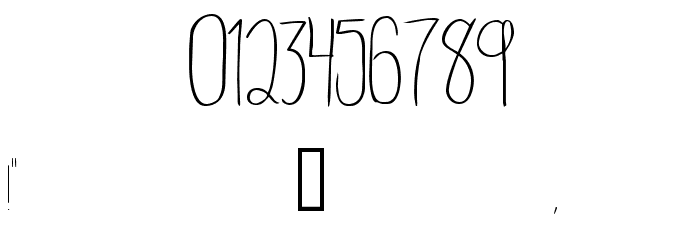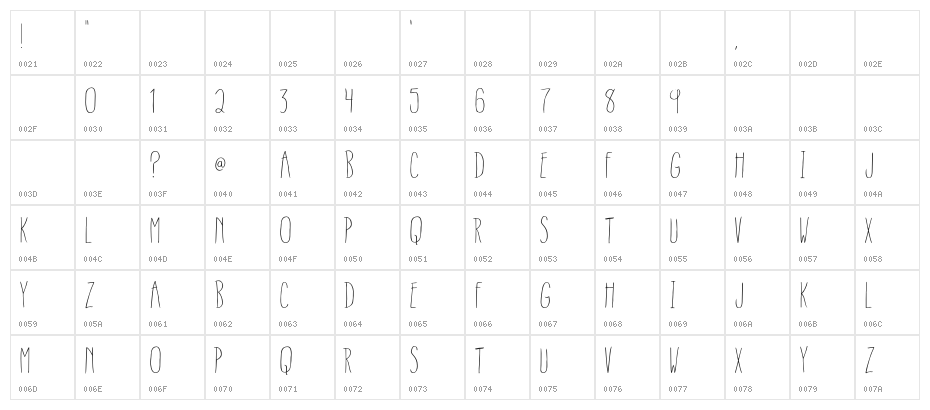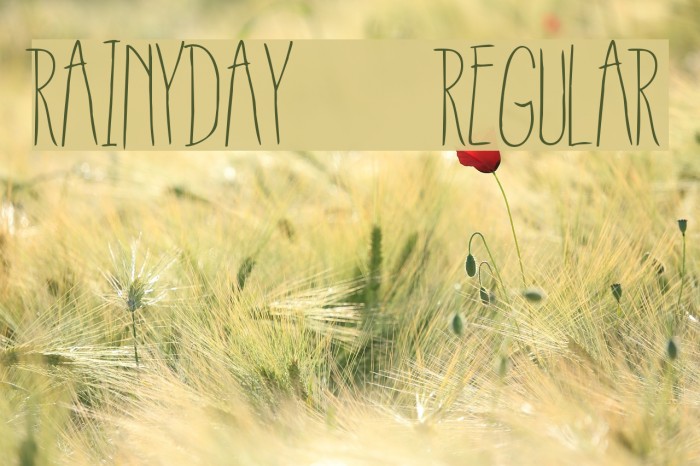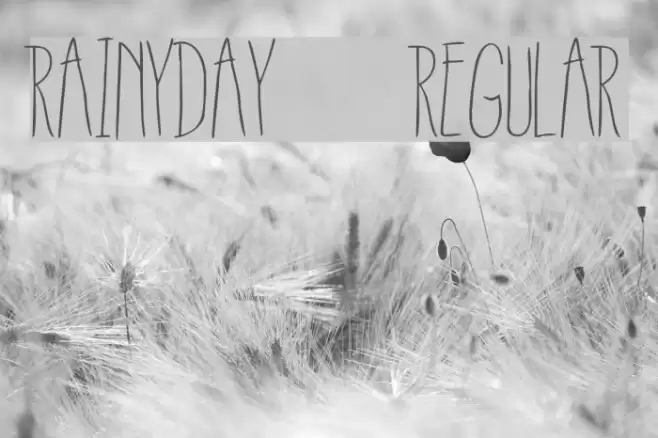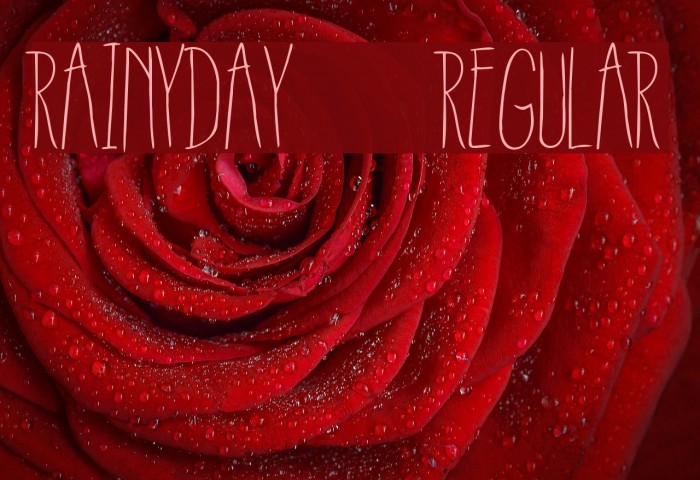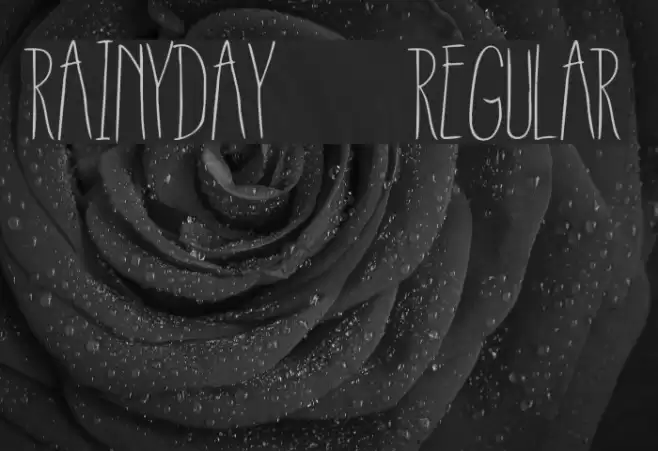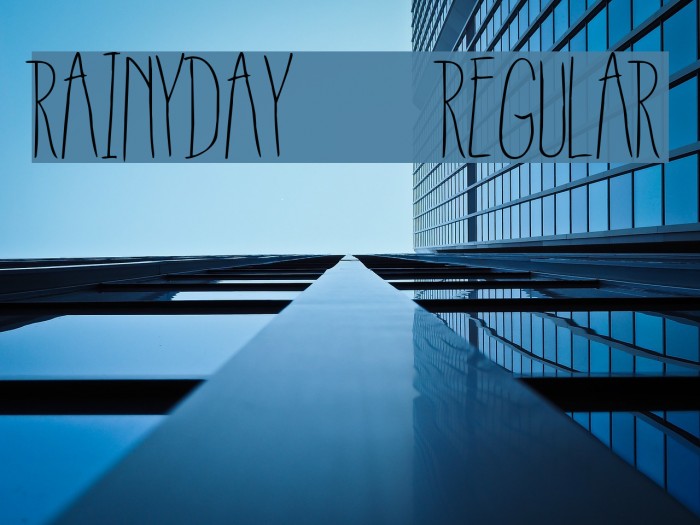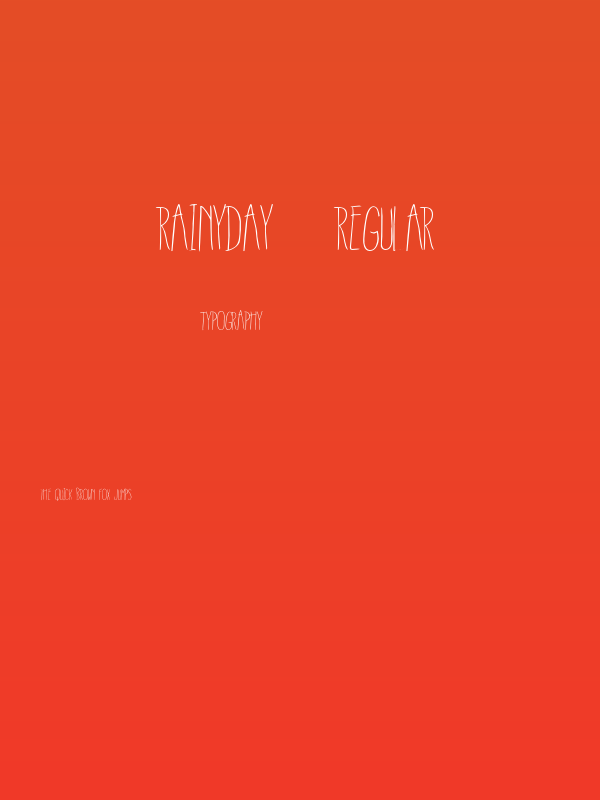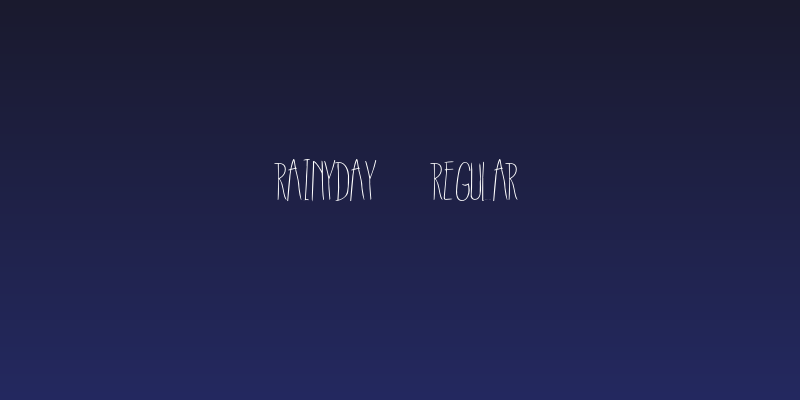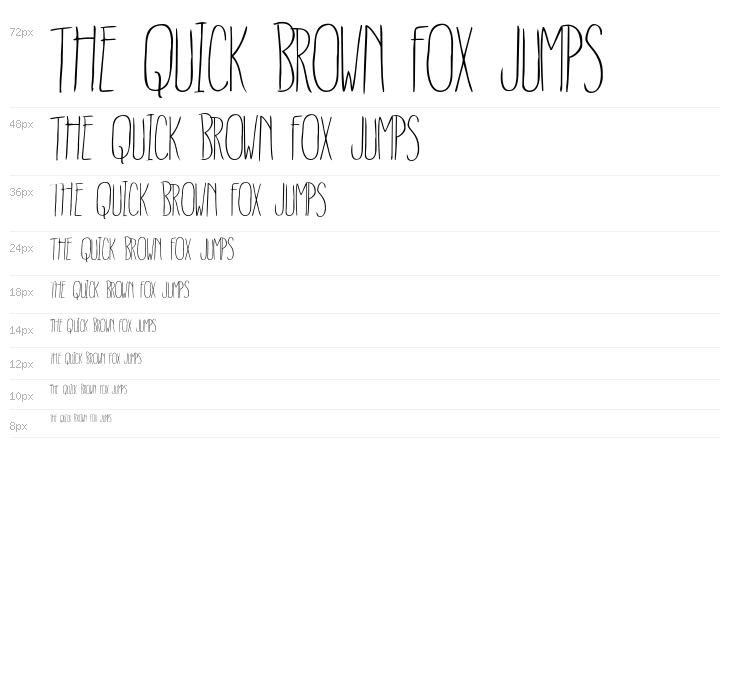
RainyDay-Regular Font
This font features a whimsical, handwritten style with tall, narrow letters that convey a sense of playfulness and creativity. The strokes are thin and consistent, giving it a delicate appearance. The characters have a slight slant, adding to the casual and informal feel. The uppercase and lowercase letters maintain a uniform height, enhancing the font's cohesive look. The numerals are similarly styled, ensuring a seamless integration with the alphabet. This font's unique charm makes it suitable for projects that require a personal touch.
| Proposed Projects | Ideal for greeting cards, invitations, children's books, and creative branding. |